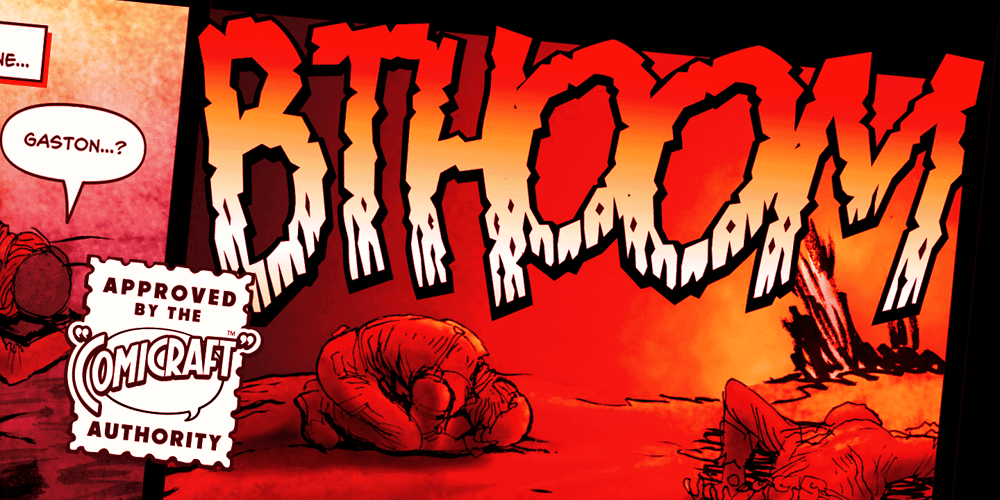
Bronto Burger
Bronto Burger font
Bronto Burger Font Family was designed by John Roshell and published by Comicraft. Bronto Burger contains 4 styles and family package options. Eight tons of Meat-eating TYRANNOSAURUS REX vs. one Vegetarian BRONTOSAUR? CRUNCHTIME!